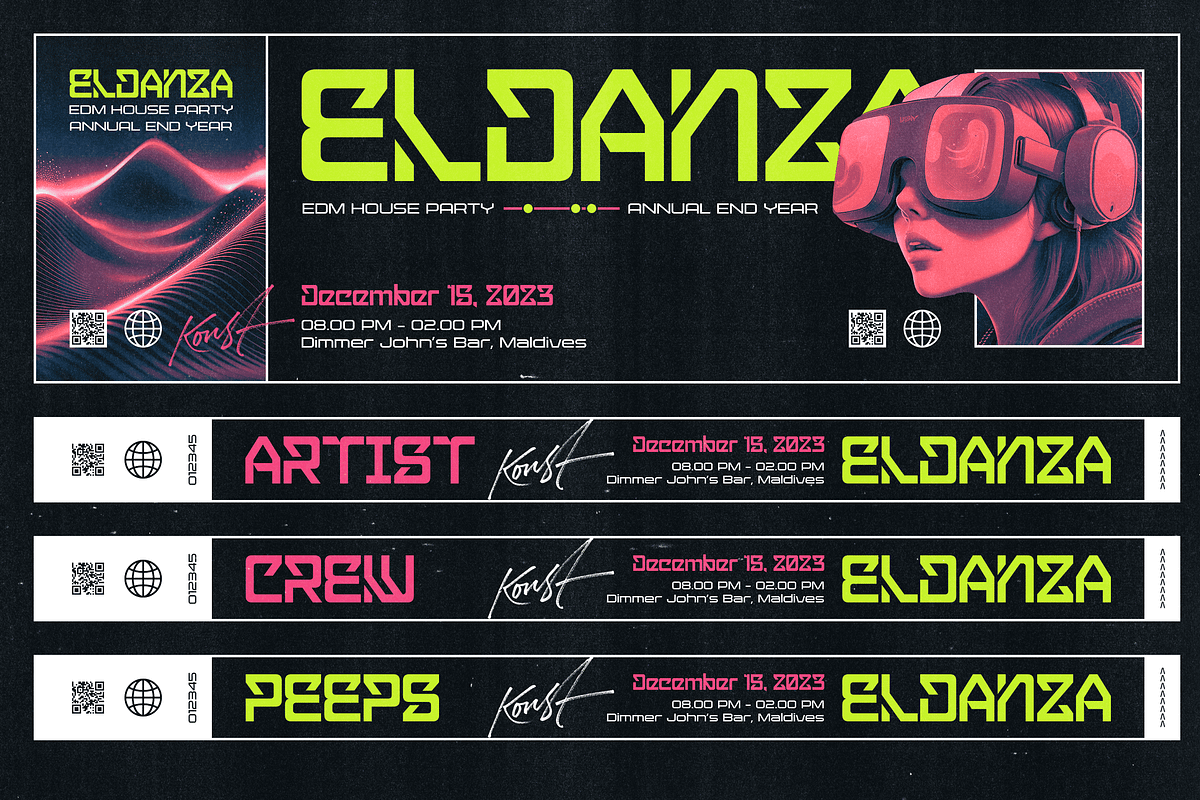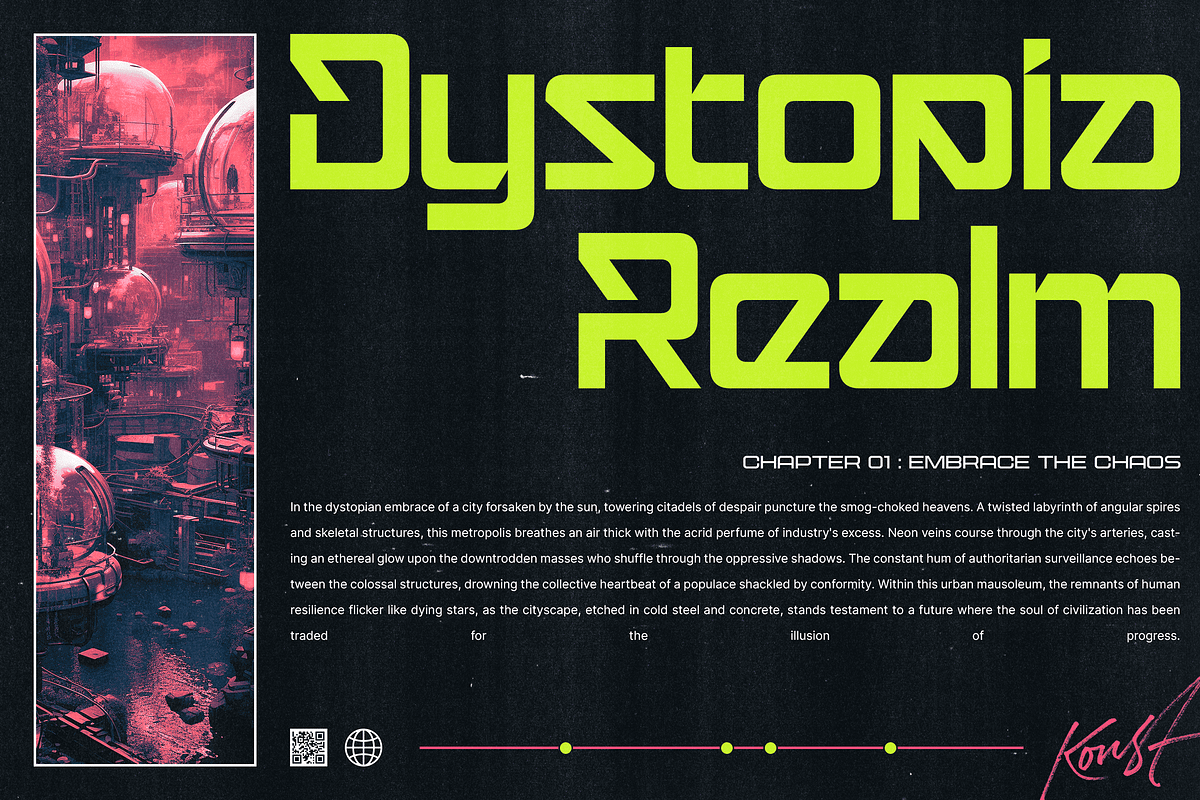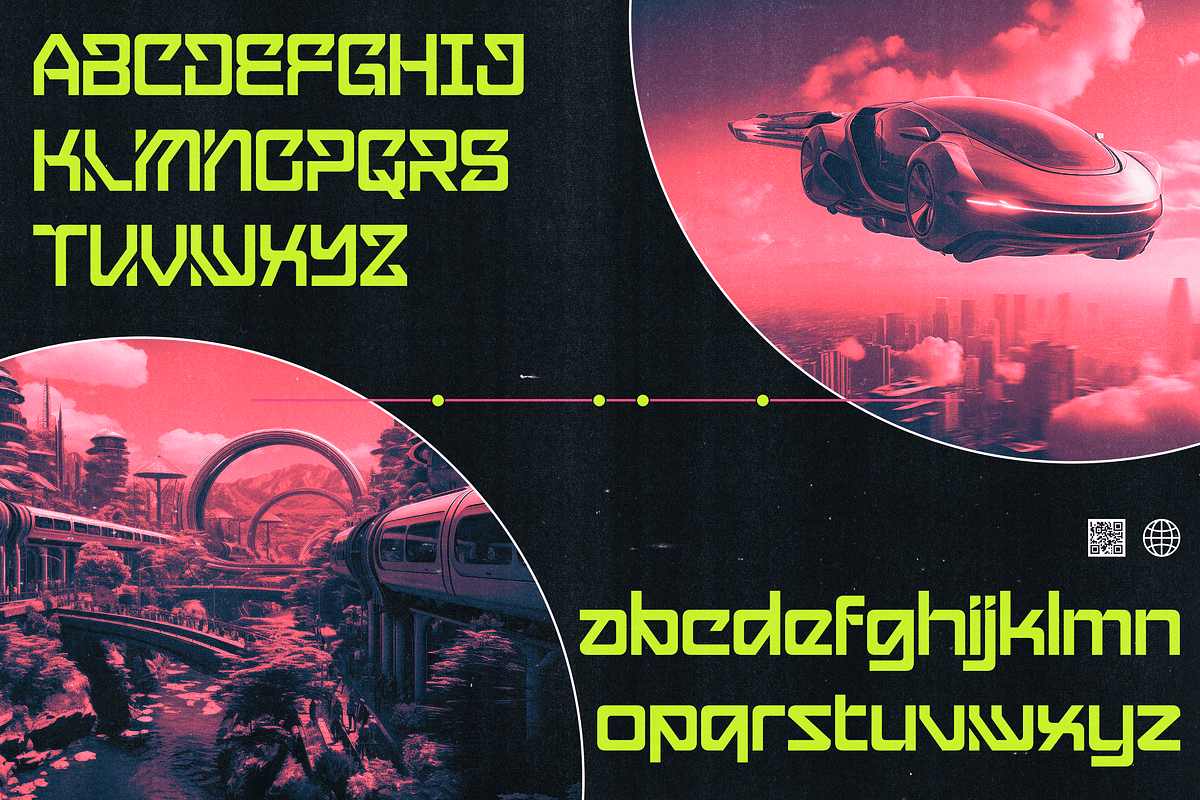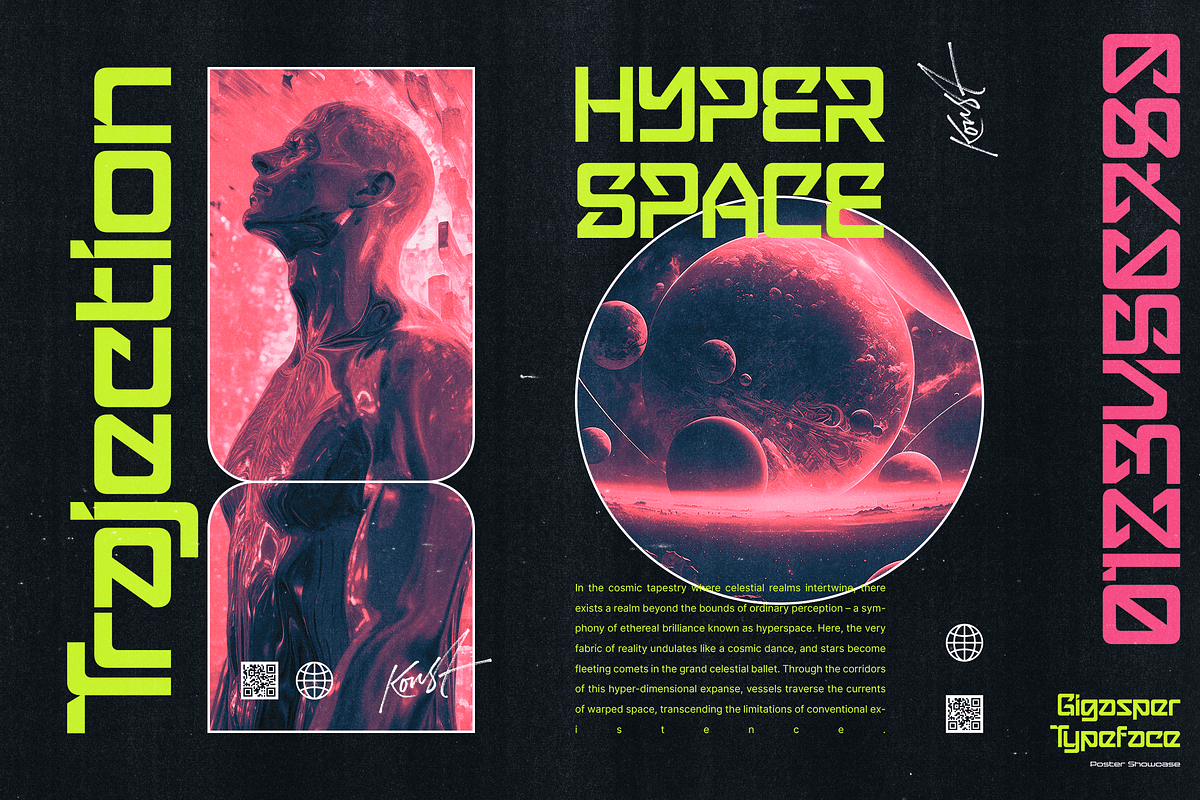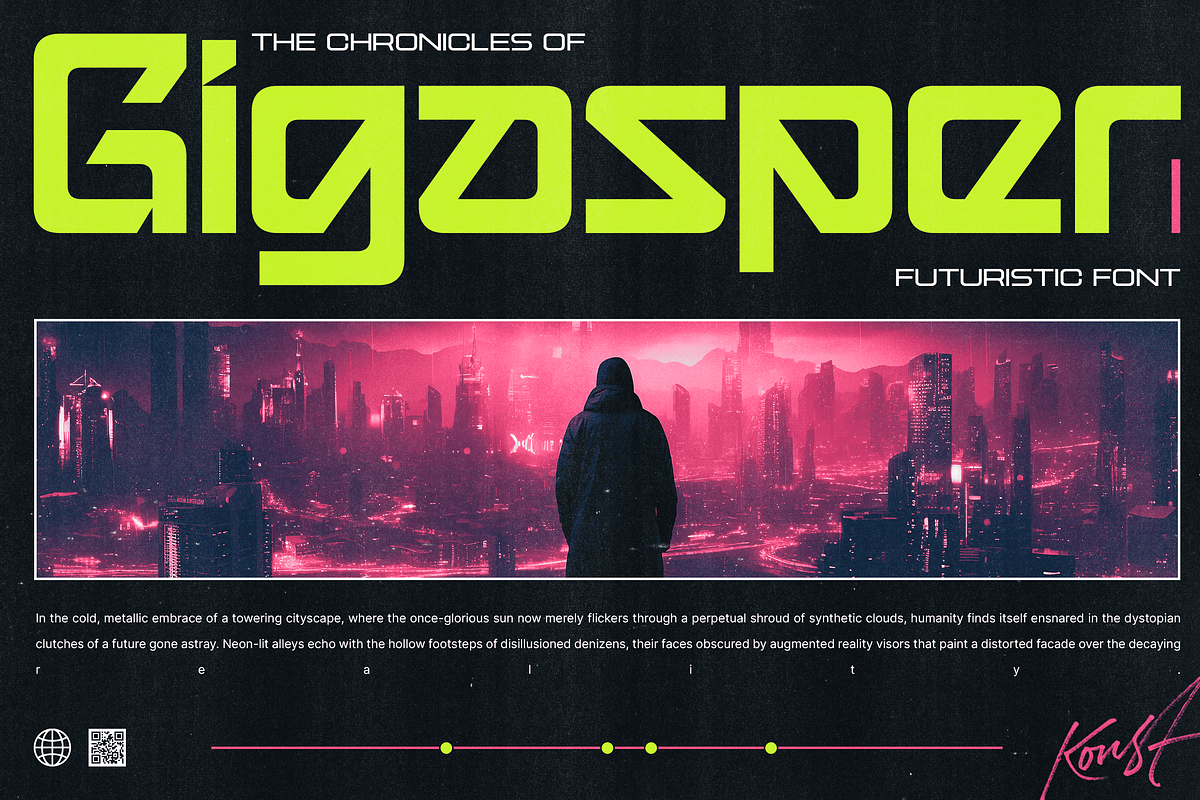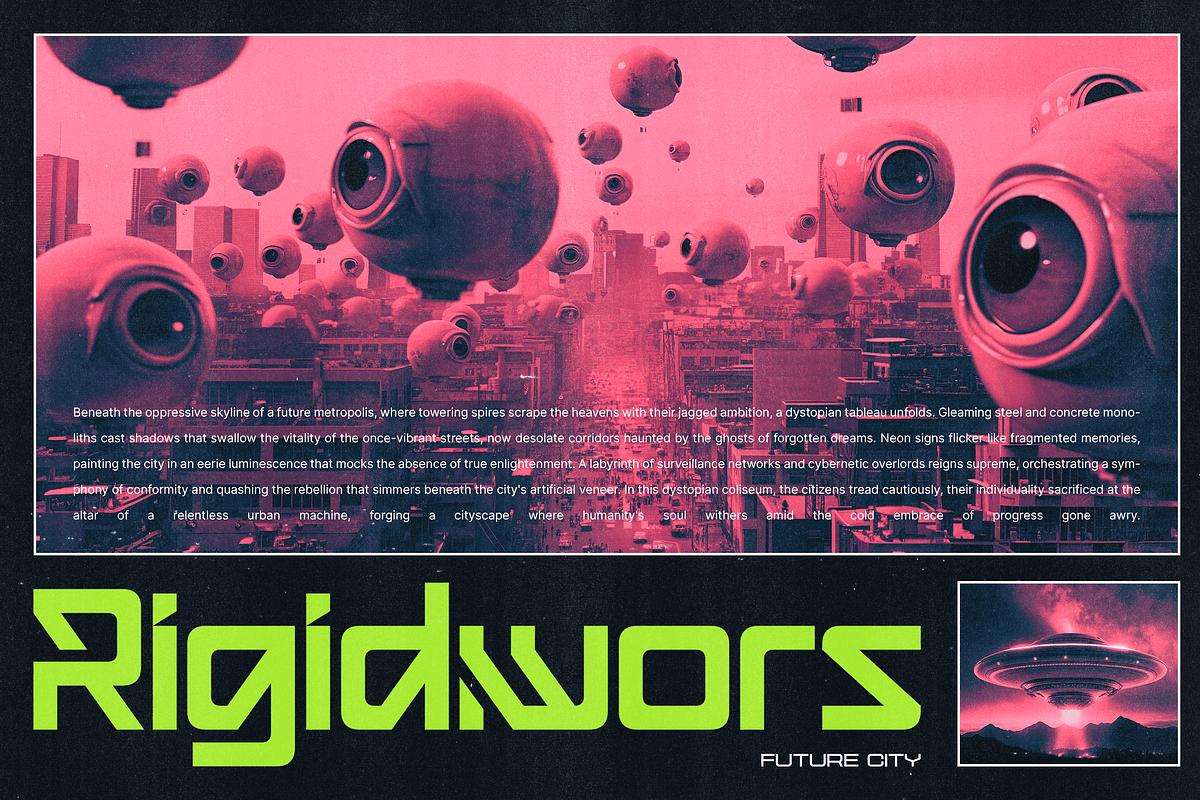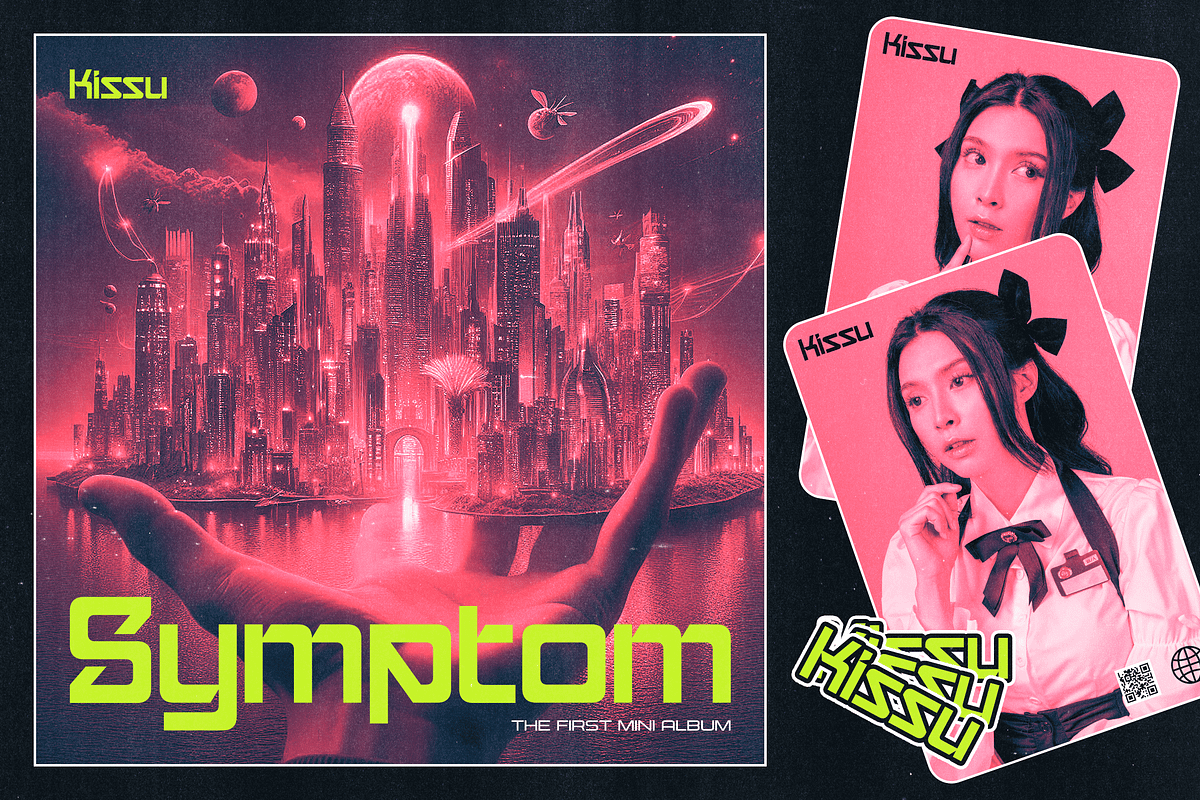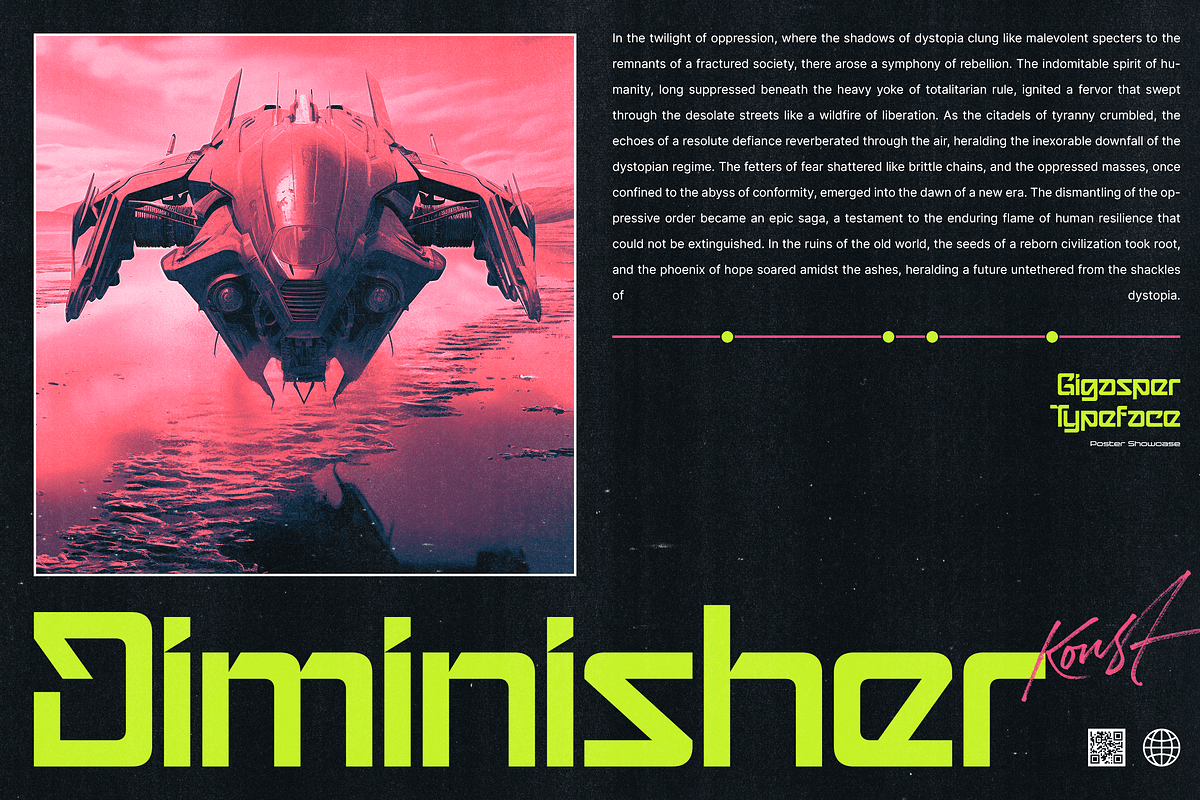
Gigasper - Futuristic Techno Fonts
Step into the digital realm with Gigasper, where cutting-edge design meets futuristic vibes in a spellbinding dance of pixels and perfection. Immerse yourself in the extraordinary fusion of techno fonts and a dystopian visual concept that redefine the boundaries of creativity.
Gigasper is not confined to boundaries; it thrives in breaking them. From sleek tech interfaces to gritty cyberpunk posters, Gigasper adapts effortlessly, ensuring your designs are always ahead of the curve. Its versatility is your canvas, and the possibilities are limitless.
Picture a world where pixels pulse with the heartbeat of innovation, and Gigasper is your guide. Embrace the distopian visual concept that weaves a narrative of rebellion and avant-garde aesthetics. This isn't just a font; it's a statement – a rebellion against the mundane, an uprising of creativity.
Unlock the Future, Embrace Gigasper - Where Techno Meets Tomorrow!